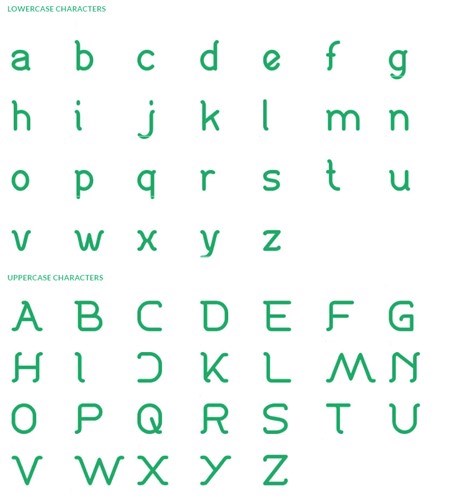
Unicorn Creatives is happy to present Dancing Bells Embrilliance Embroidery Font - Decorative Holiday Alphabet - BX font machine embroidery font which has Decorative machine embroidery font with playful, rounded shapes in festive red and green, ideal for holiday designs on pillows and decorations. Available in BX font and Embrilliance formats. included. If you would like to view more embroidery fonts and alphabets please search our embroidery fonts page.
Dancing Bells Embrilliance Embroidery Font - Decorative Holiday Alphabet - BX font